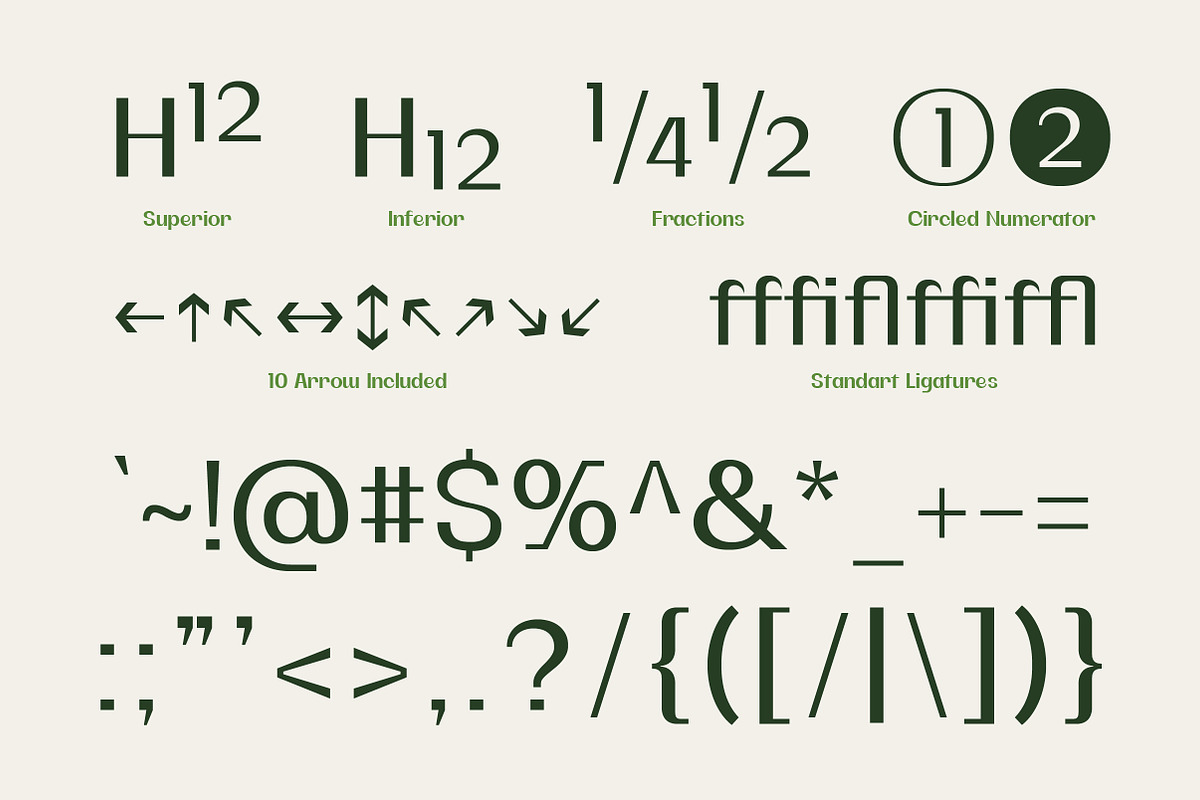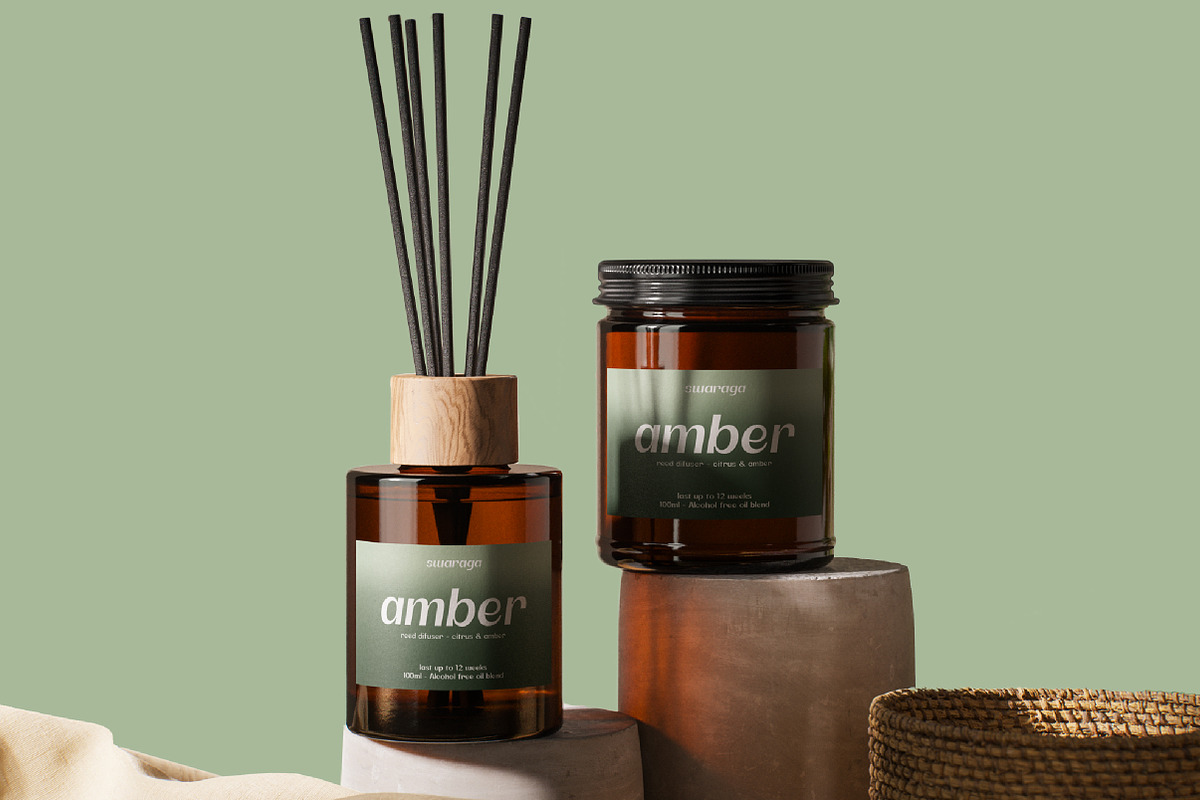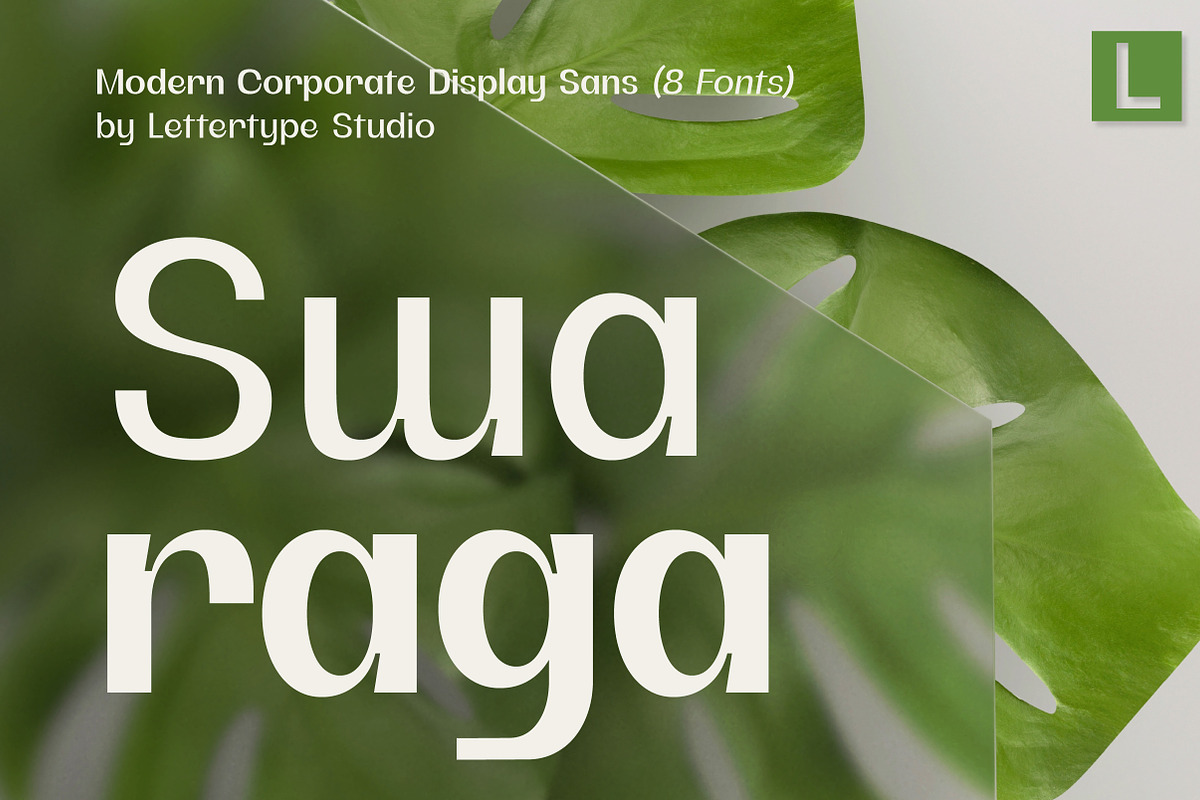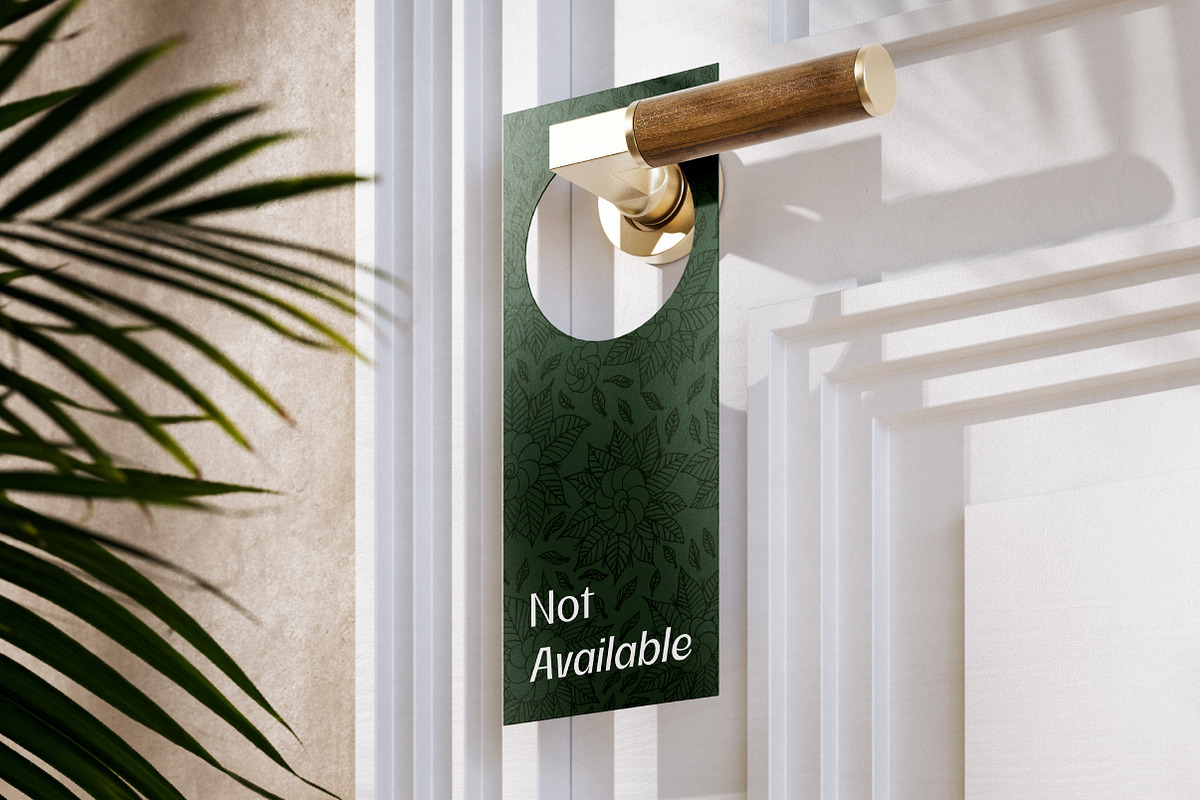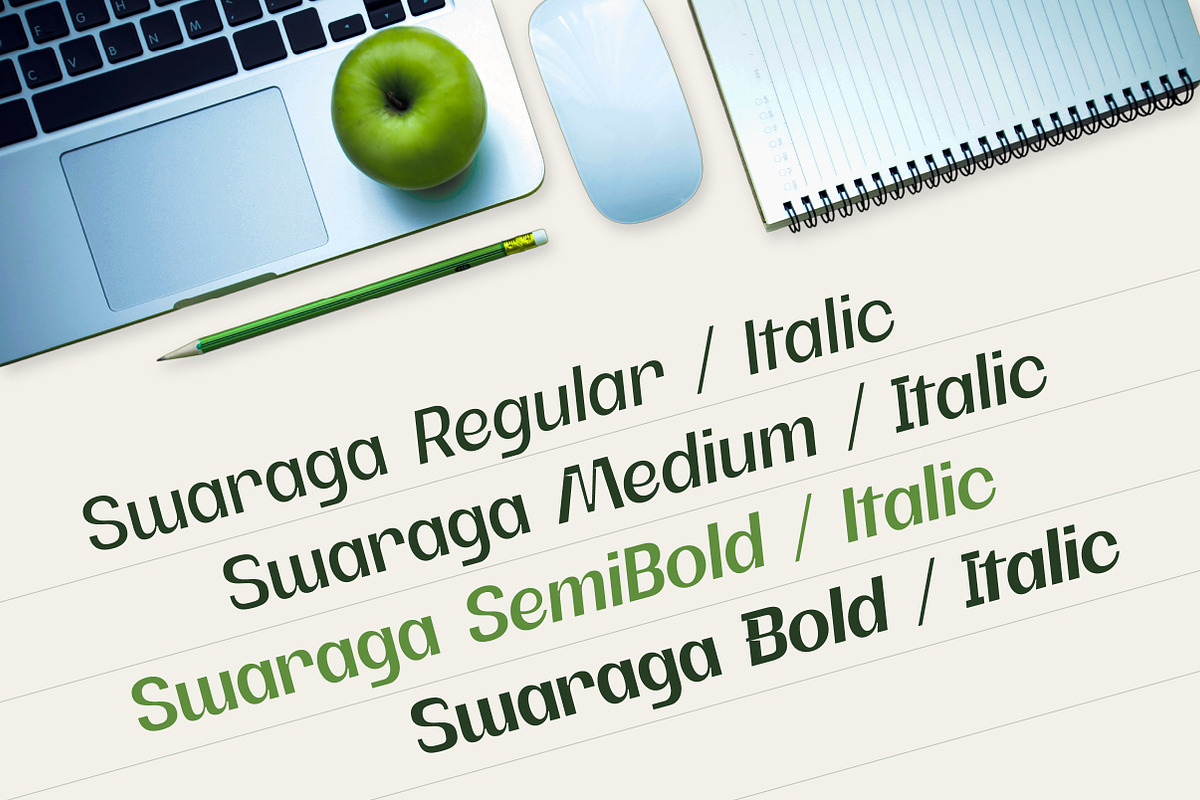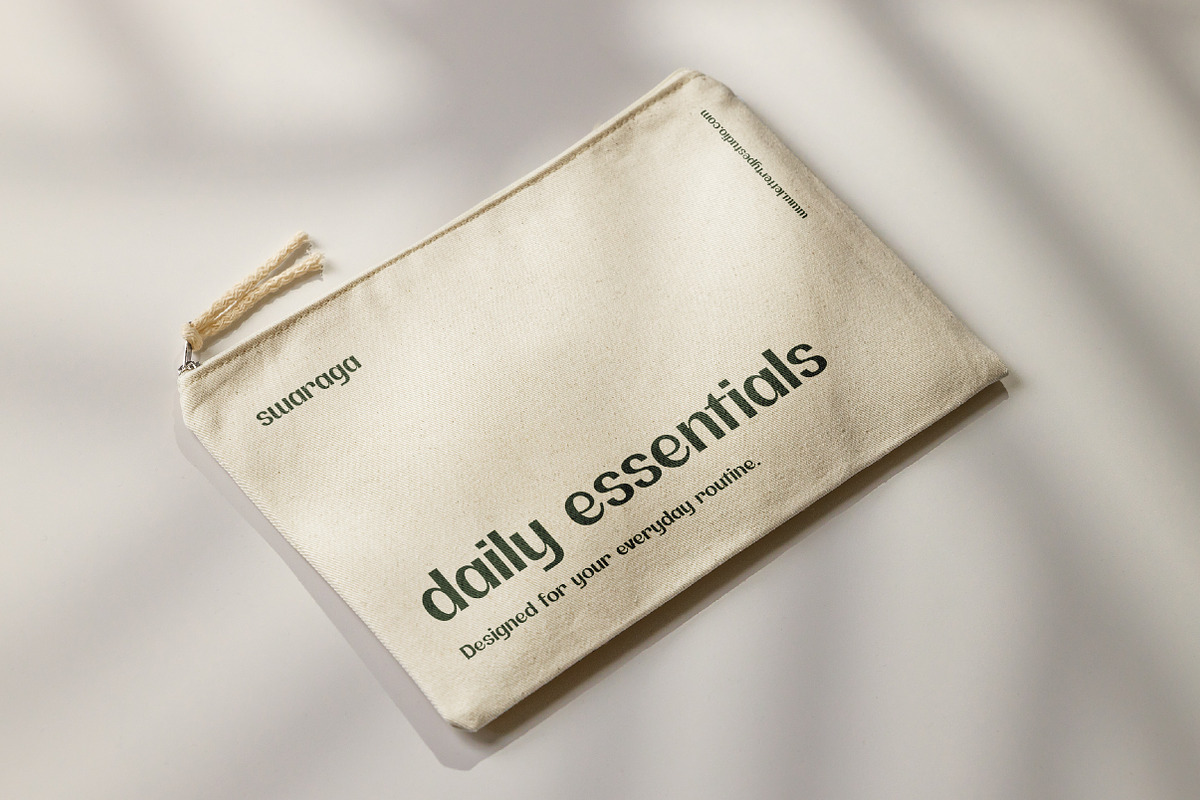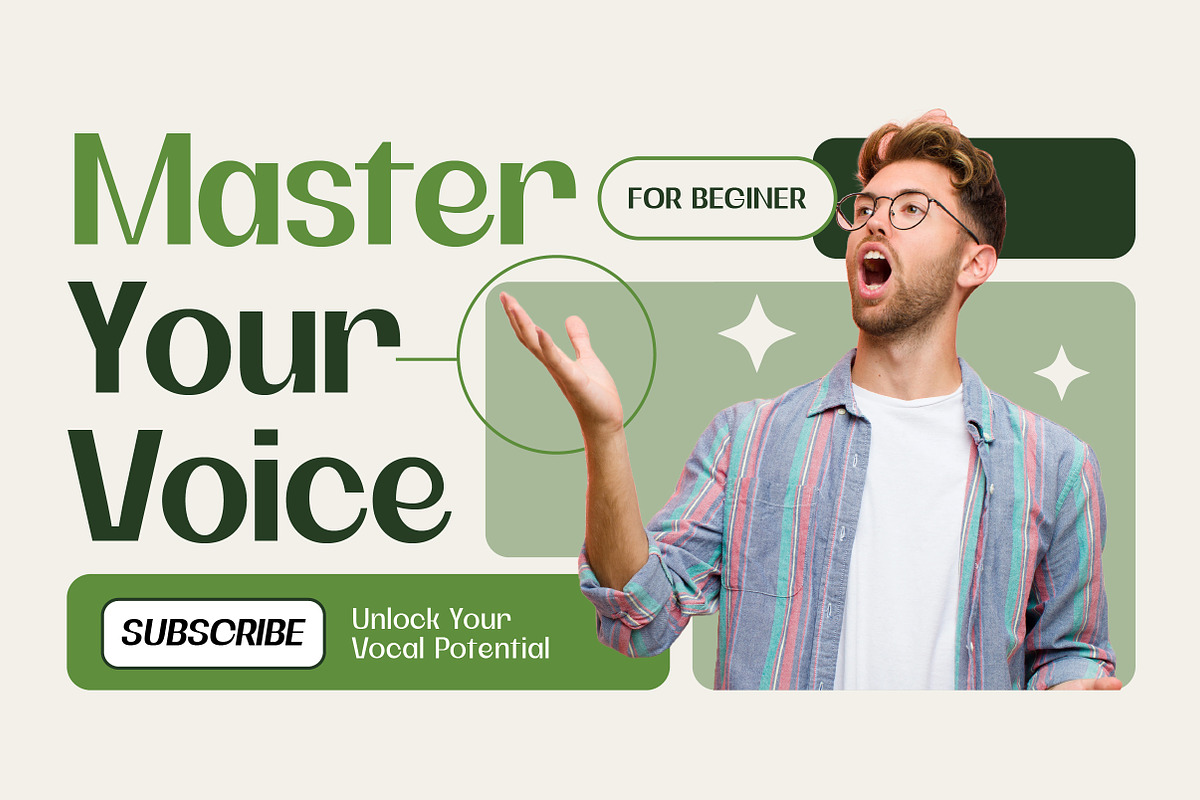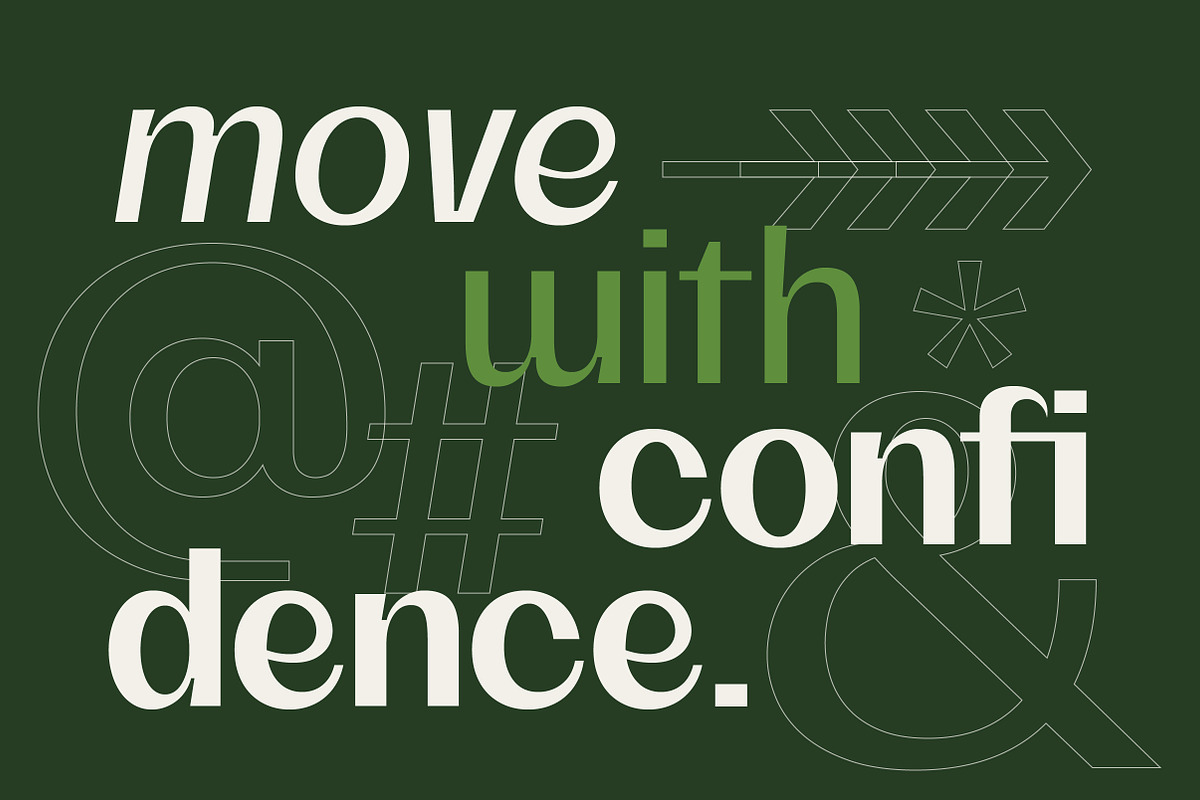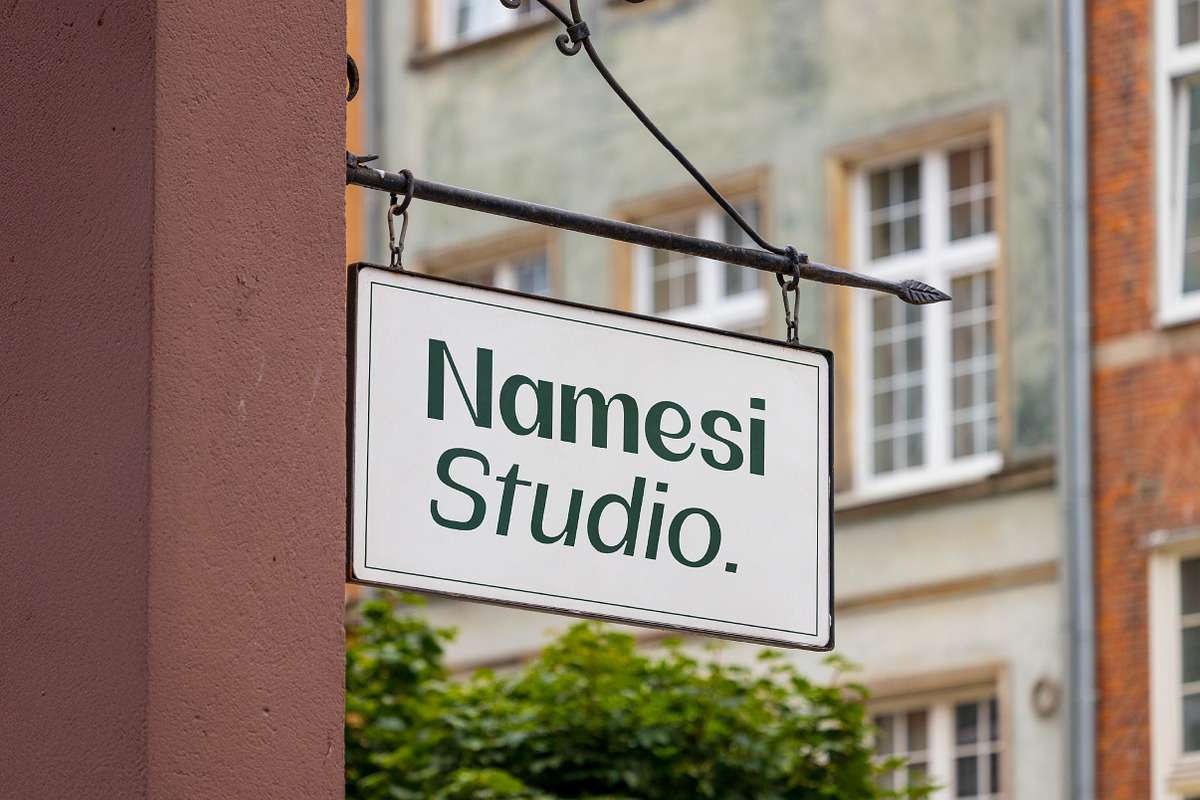
Swaraga - Modern Corporate Display
Swaraga is a modern corporate display sans designed to combine clean contemporary structure with subtle Sundanese-inspired details. Its distinctive letterforms give the family a recognizable visual personality while maintaining a refined and confident appearance suitable for modern branding and display applications.
A key feature of Swaraga is its A–Z uppercase alternate glyphs, giving designers additional distinctive forms for creating stronger titles, headers, logos, and large-scale display compositions. The family includes Regular and Slant styles, providing both a straightforward upright voice and a more dynamic angled expression.
Swaraga Features:
8 Styles
Upright & Italic
26 Unique Alternates
528 Glyphs Total
260+ Languages Support
Branding & Visual Identity
Editorial & Publishing
Fashion & Lifestyle
Packaging & Advertising
Web & Digital Design